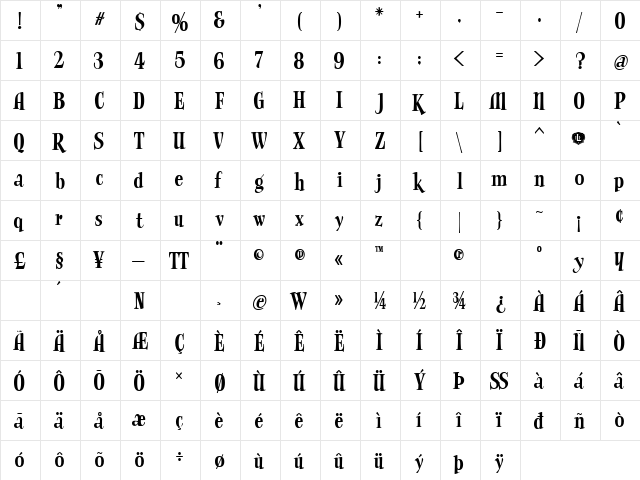
LHF Wade Grotesque EXTRA Regular
Design Context for LHF Wade Grotesque EXTRA Typeface
LHF Wade Grotesque EXTRA offers clean, dependable letterforms without strong stylistic allegiance, making it a practical choice for designers who need flexibility.